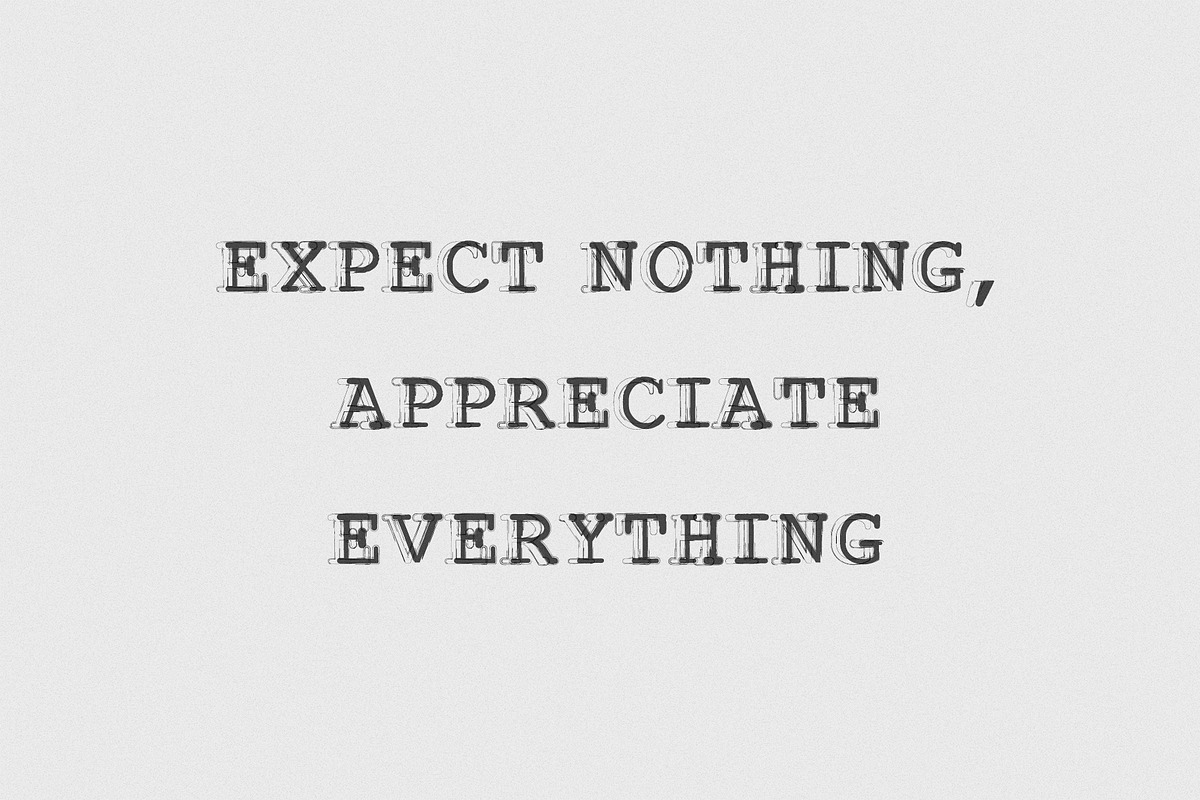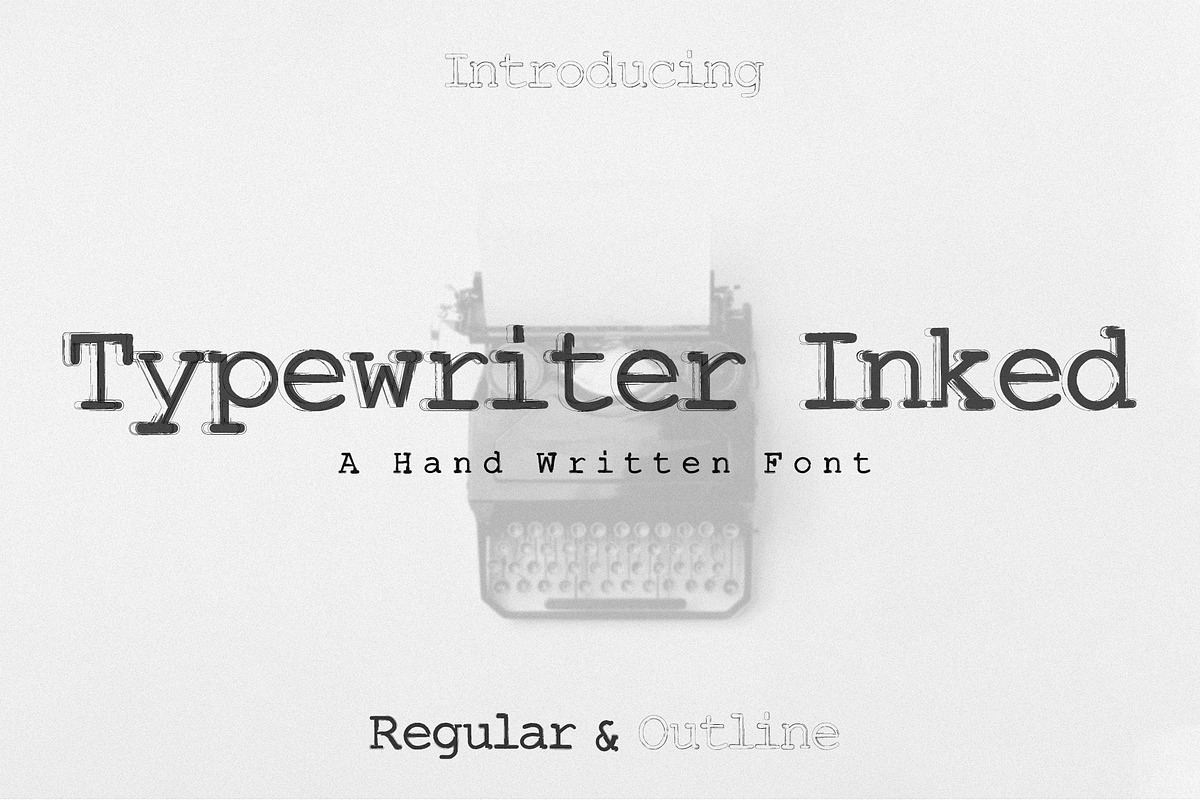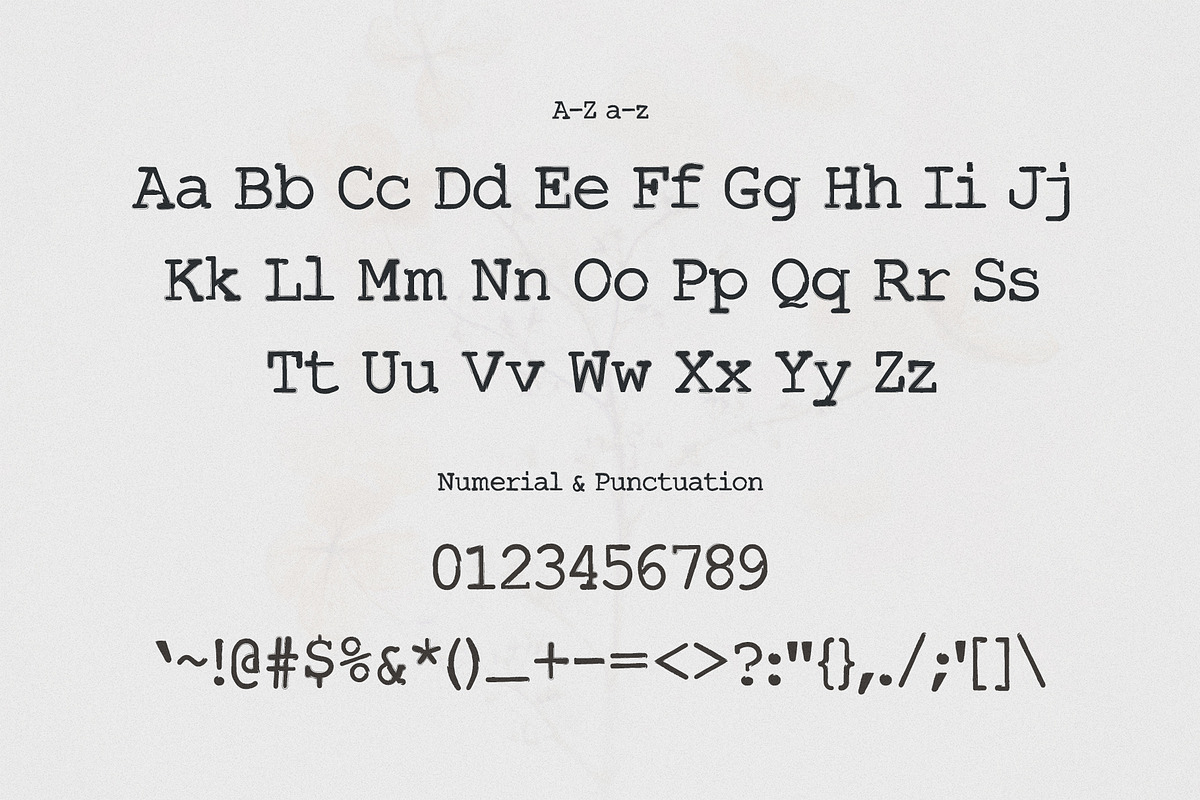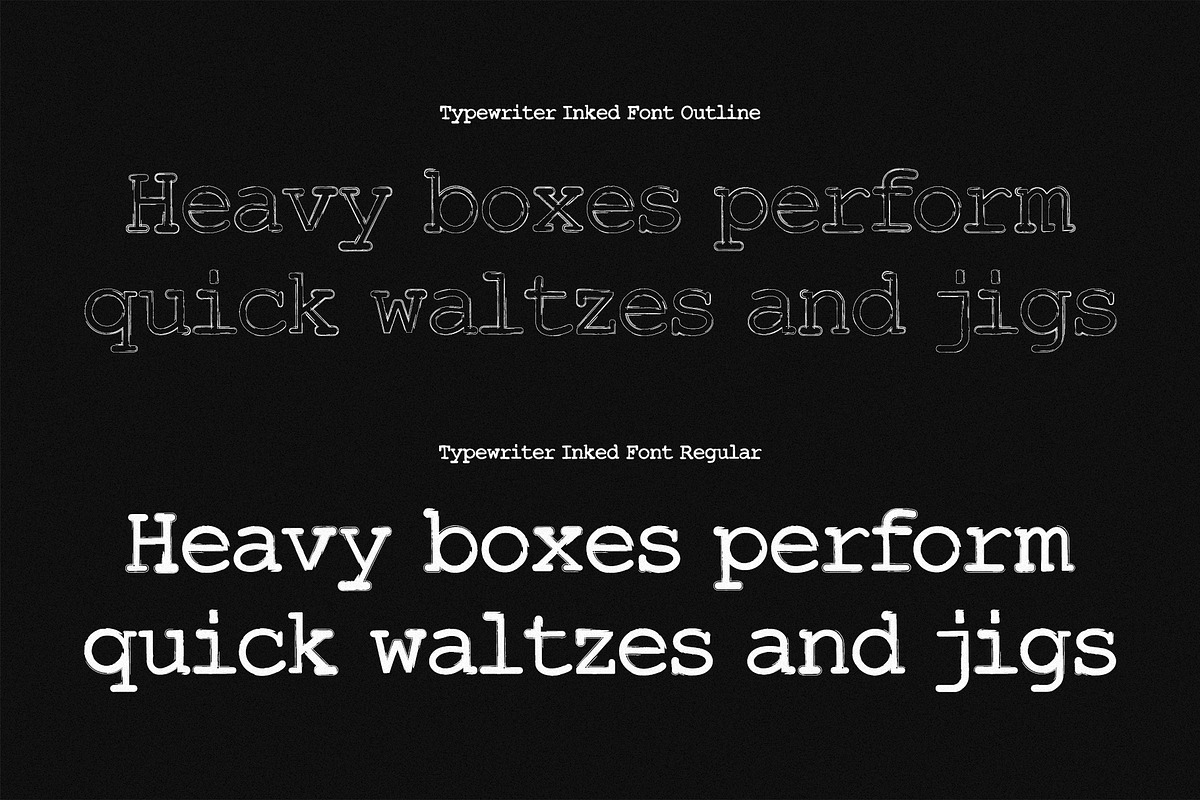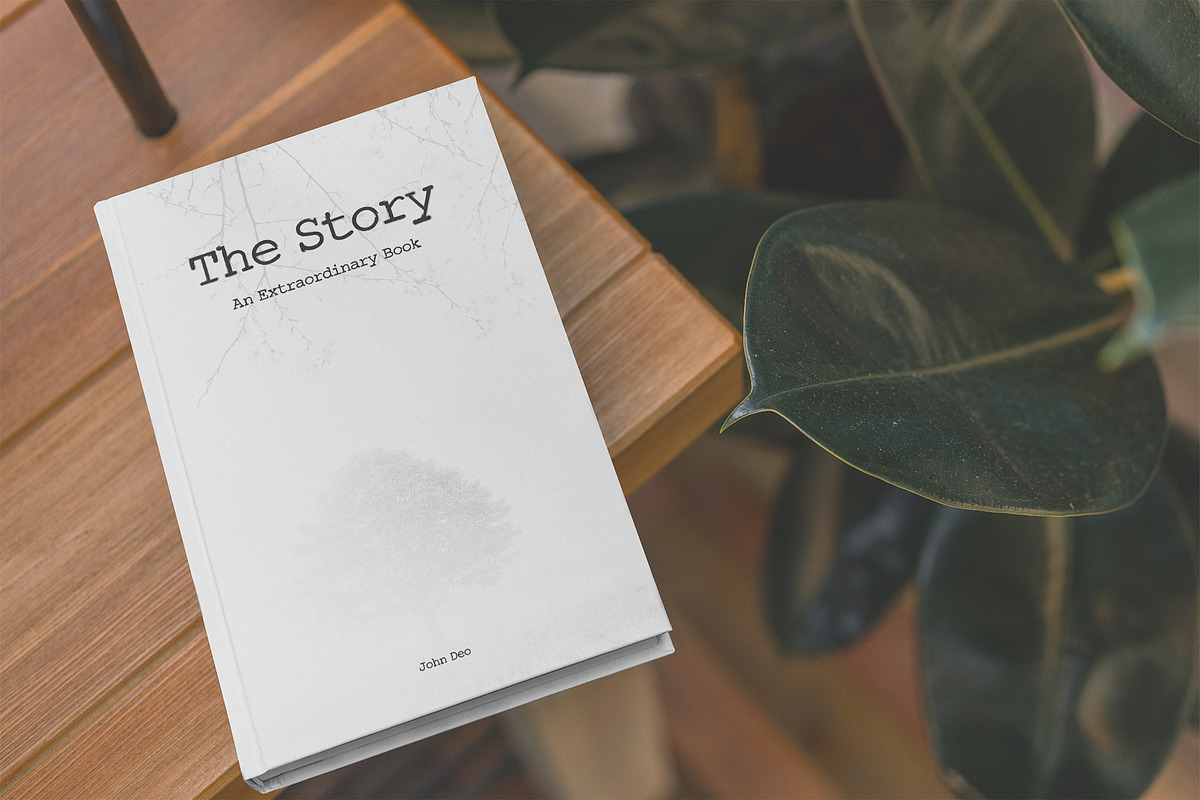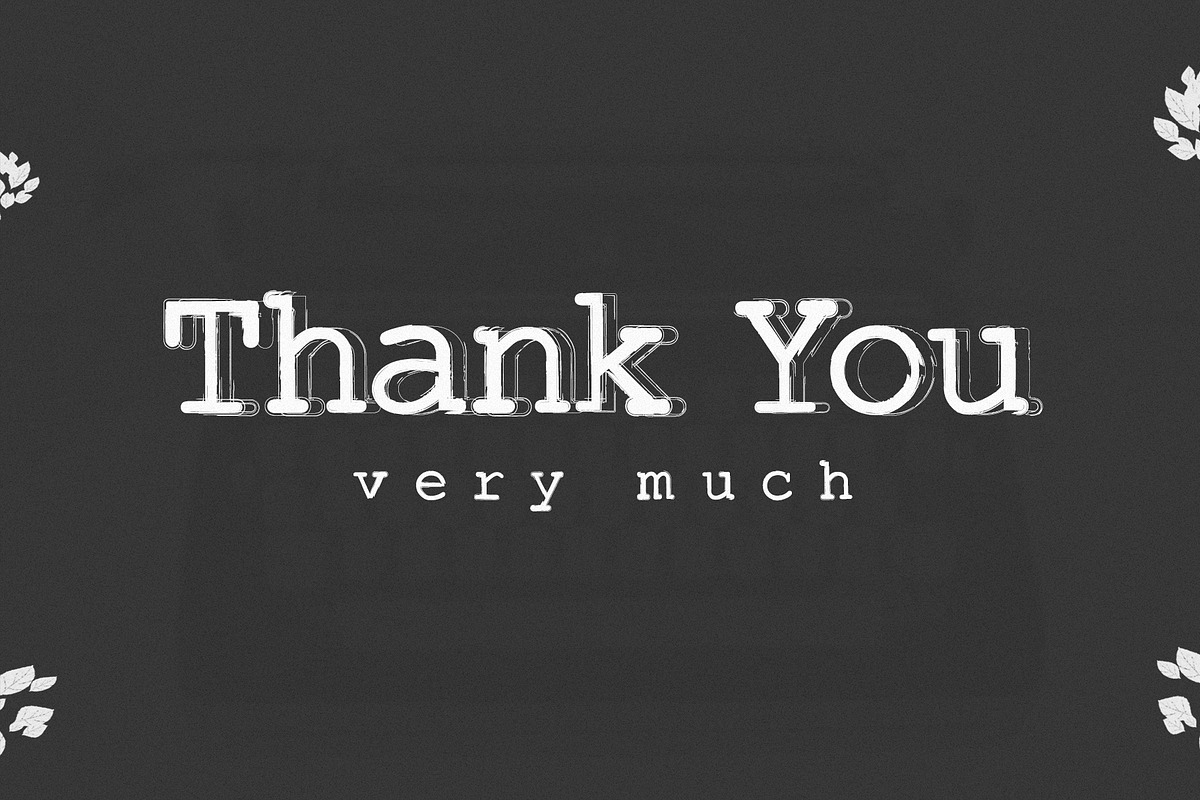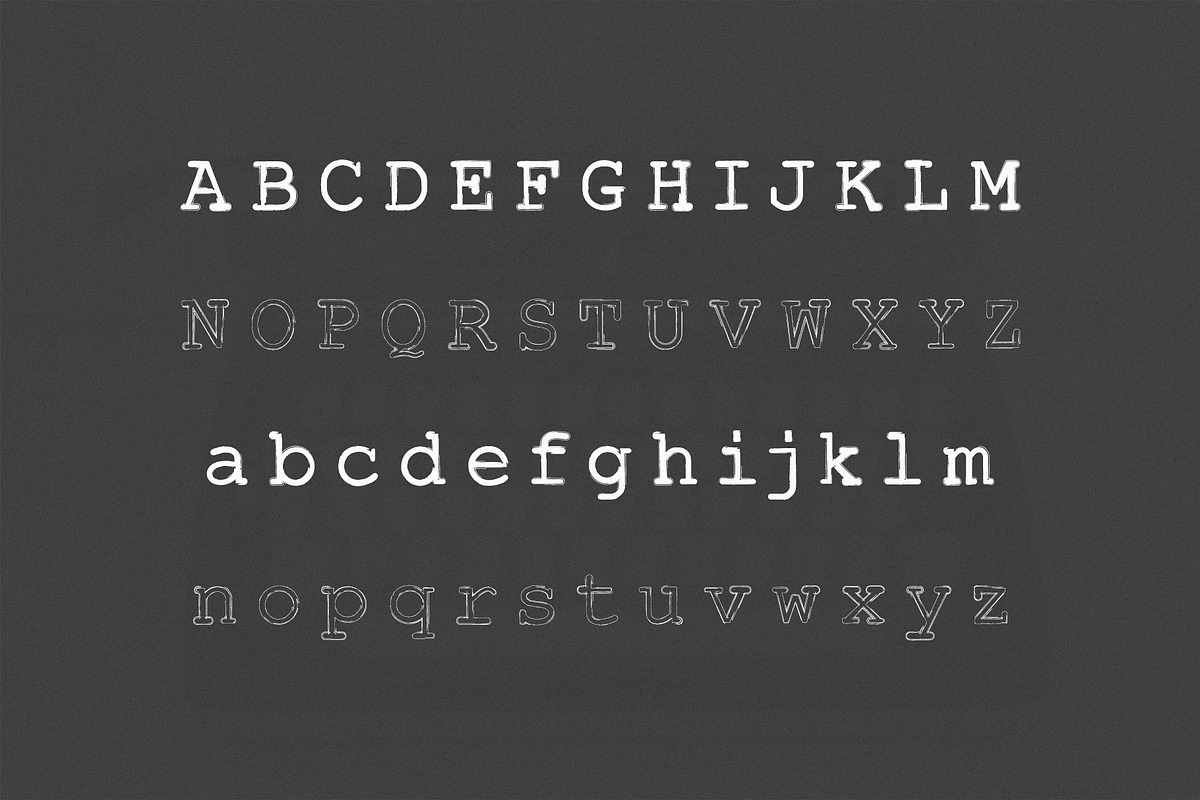
Typewriter Inked Handwritten Font
Typewriter Inked is a stylish, unique and confident font that will add a luxury spark to your future design project that you wish to create! It contains uppercase, lowercase, number, punctuation and symbols. Typewriter Inked font will be perfect for packaging, presentations, logo, headlines, lettering, posters, branding, quotes, titles, magazines headings, web layouts, advertising, invitations, packaging design, books, and nearly any creative design.
- Font Weight: Regular, Outline and Italic
- Uppercase Letters
- Lowercase Letters